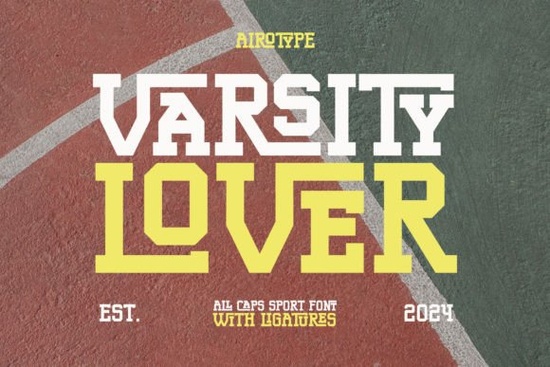
Why does a slab serif work so well for athletic branding?
Sports design relies on clarity and impact. Thick letterforms with solid serifs hold up beautifully on fabric, vinyl, and large-format prints. When you place text on a curved surface like a baseball cap or a hoodie pocket, you need characters that will not distort. This typeface keeps its structure intact, even when scaled down for sleeve patches or enlarged for sideline banners. The all-caps layout also removes guesswork around case pairing, giving you a uniform look that matches traditional team aesthetics.
How do I access the ligatures and special glyphs?
The PUA encoding makes extra characters easy to reach without advanced software. Whether you are working in Cricut Design Space, Silhouette Studio, or Photoshop, the alternate glyphs and built-in ligatures will appear in your font menu or character map. Simply toggle the ligature option or open the glyph panel to swap standard letters for sport-themed variations. This saves considerable time when batching orders or preparing cut files for heat transfer vinyl.
Which projects get the best results from this style?
The heavy, athletic vibe pairs naturally with merchandise that needs to stand out. Consider using it for:
- Custom team jerseys and practice shirts
- Softball and baseball tournament schedules
- Soccer club fundraiser posters
- Vintage-style jacket backs and hoodie prints
- School spirit decals and bumper stickers
If you prefer a softer contrast for secondary text, combine it with a complementary display style. Pairing it with playful celebration lettering softens youth sports flyers, while mixing it with fluid brush styles adds motion to swim team graphics. When you need a retro vibe for concession signage, retro script alternatives balance the rigid slab structure nicely. You can also browse this sporty typeface collection for matching templates, or explore clean modern display options for minimalist athletic branding.
Start with a quick test print on your actual material. Fabric, cardstock, and adhesive vinyl react differently to thick letterforms. Adjust your tracking slightly if the caps feel too tight, and leave enough negative space around ligatures so they do not blend into the background. When designing for dark garments, use a light underbase to maintain readability after washing. Save your favorite ligature combinations as separate SVG assets so you can reuse them across multiple listings without rebuilding the text.